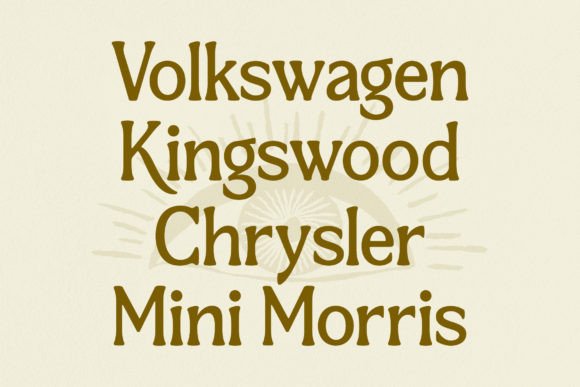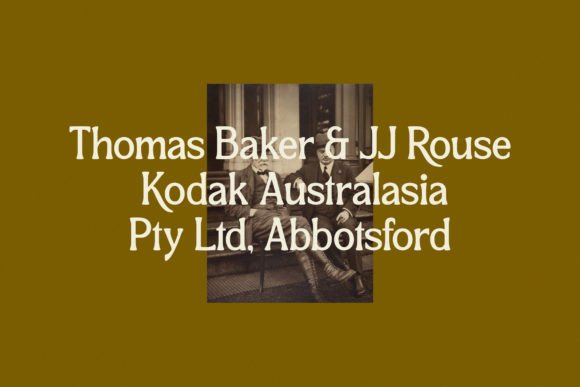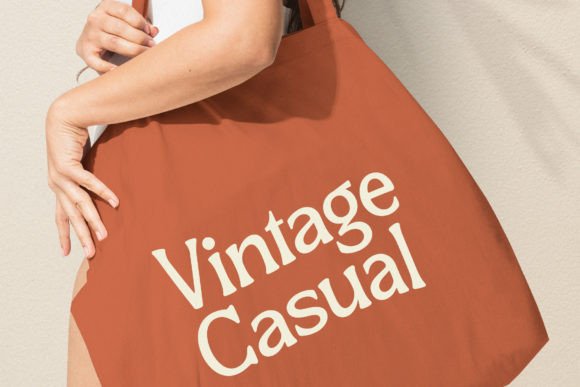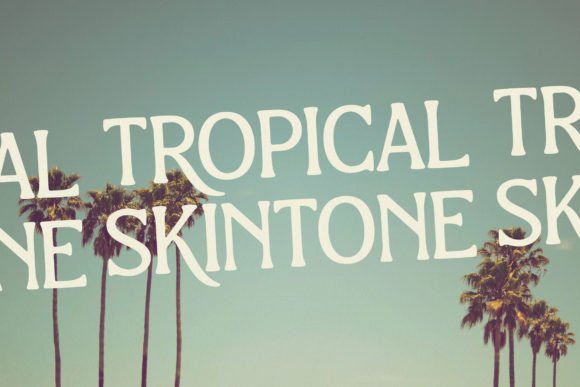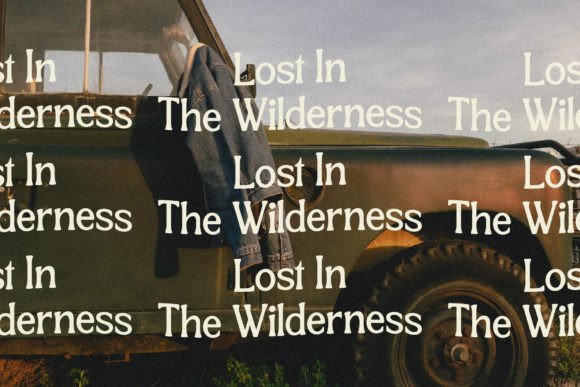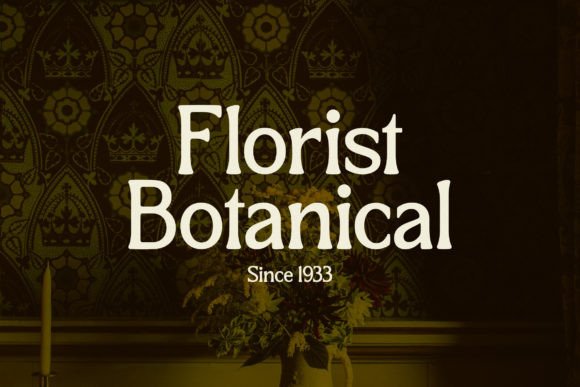
Introduction to Qetalon Font
Qetalon is a cool and unique retro-style serif font crafted to give your headlines and logotype projects a stylish touch.
This font reads as strong, confident, and dynamic and can add tons of nostalgic character to your designs .
Key Features of Qetalon Font